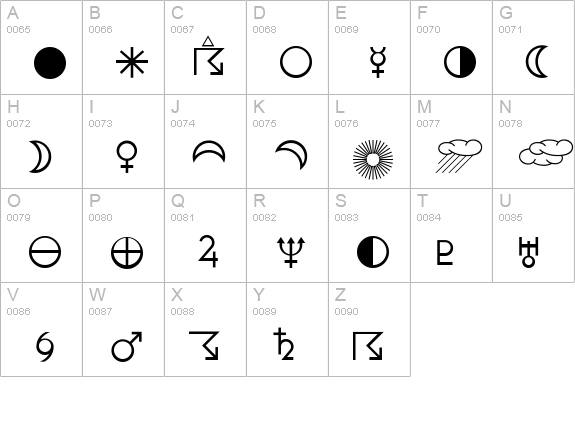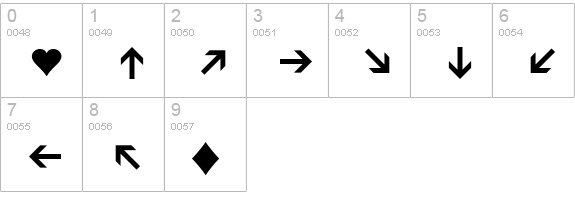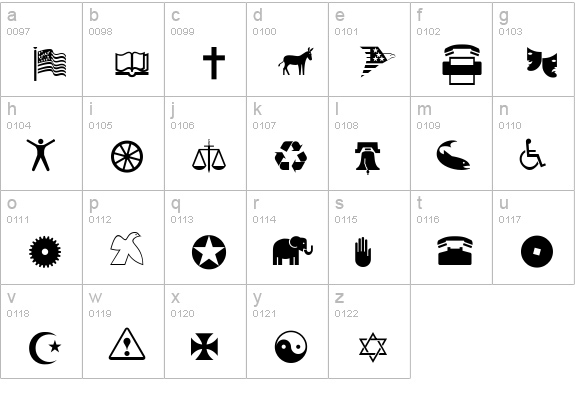
PIXymbolsDingbats Font Details
PIXymbolsDingbats font is a delightful collection of symbols and icons that will add a touch of whimsy and charm to your designs. This font features a wide range of doodles, shapes, and illustrations that can be used to enhance any project. Whether you're creating a logo, designing a website, or crafting a flyer, PIXymbolsDingbats font has something for everyone. From simple arrows and stars to intricate floral motifs and animal silhouettes, this font offers endless possibilities for creativity. What sets PIXymbolsDingbats font apart is not only its extensive collection of symbols but also its accessibility. This font is freely available to download at FontsMarket.com, making it a valuable resource for designers on a budget. With just a few clicks, you can have this font at your fingertips, ready to bring your designs to life. The versatility of PIXymbolsDingbats font is another standout feature. Whether you're aiming for a playful and whimsical look or a sleek and modern aesthetic, this font has the perfect symbol to complement your vision. With its clean lines and well-defined shapes, each symbol in this font is easy to read and recognize. In addition to its aesthetic appeal, PIXymbolsDingbats font is also highly functional. Each symbol is carefully crafted to ensure that it works seamlessly in any design application. Whether you're working in Adobe Photoshop, Illustrator, or any other design software, you can trust that this font will deliver consistent and high-quality results. So why wait? Download PIXymbolsDingbats font today and unleash your creativity. With its vast selection of symbols, its accessibility, and its versatility, this font is a must-have for designers of all levels. Whether you're a professional designer or just starting out, PIXymbolsDingbats font will be a valuable addition to your font library. And the best part? It's free! So head over to FontsMarket.com and start exploring the endless possibilities of PIXymbolsDingbats font.